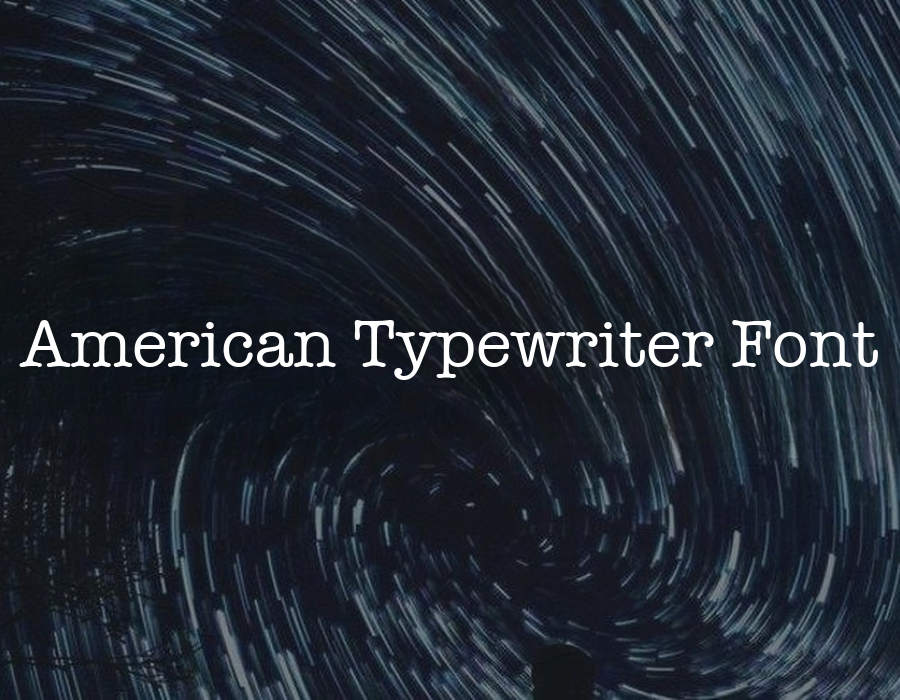
American typewriter font is a serif typeface that comes under the slab classification. Joel Kaden and Tony Stan designed this serif font in 1974 for different foundries including ITC, Apple, Adobe, and Linotype. The designer took inspiration from the typewriters of serif style for designing this font. The characters of this font do not have identical widths. It gives you old vibes and is often used in places where you do not want to set a modern image.
The font comprises 4 weights including bold and light and has a distinct condensed style. However, a few weights don’t contain an Italic version.
Usage of American Typewriter Font
The font has been applied in the various media fields for a long time and is still used. An American New Motorweek used this font in different signs for many years. Furthermore ‘The Office’ applied this font to their logo that made it popular. Hence, you can apply the font on various spots including the media field, Logos, Titles, websites, designs, etc.
Moreover, you can use Courier font as similar to the American typewriter font. It is also a slab-serif font.
What Type of Font Is the American Typewriter Font?
It is a serif typeface that was designed after being stimulated by the designs of an American inventor, Christopher Latham Sholes. The font is also called ITC American Typewriter and Helvetica Typewriter.
What Is the Font that Looks Like a Typewriter?
A slab serif font, Courier font contains similarities with an American typewriter font.
Is American Typewriter a Good Font?
It is undoubtedly worth using a typeface that contains various condensed styles and weights. Many notable companies and brands have used this font on their logos that depict its importance.
What Font Is Closest to An Old Typewriter?
Whitney Font is closest to an old typewriter font.
Where Can You Use American Typewriter Font?
You can use this font in different entertainment fields. Furthermore, you can apply the font to Logos, Titles, websites, texts, designs, and many other possible places.